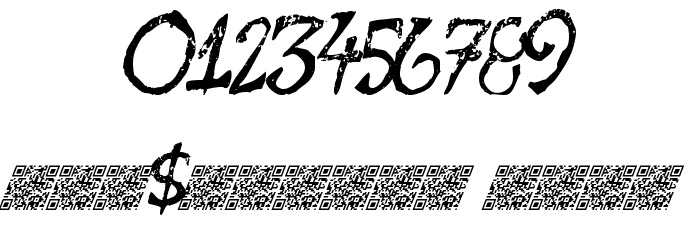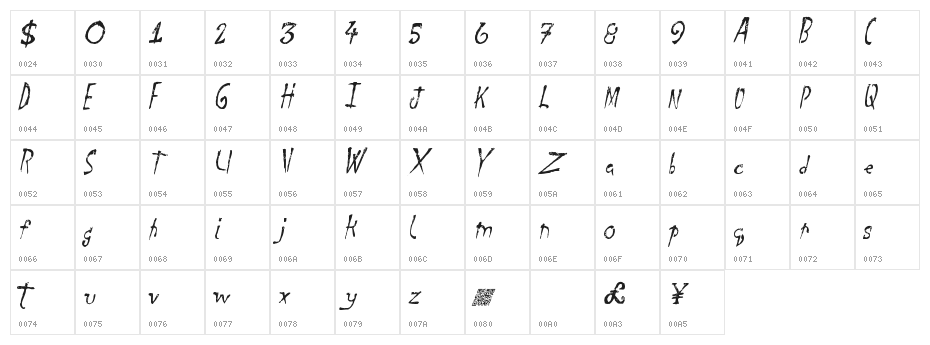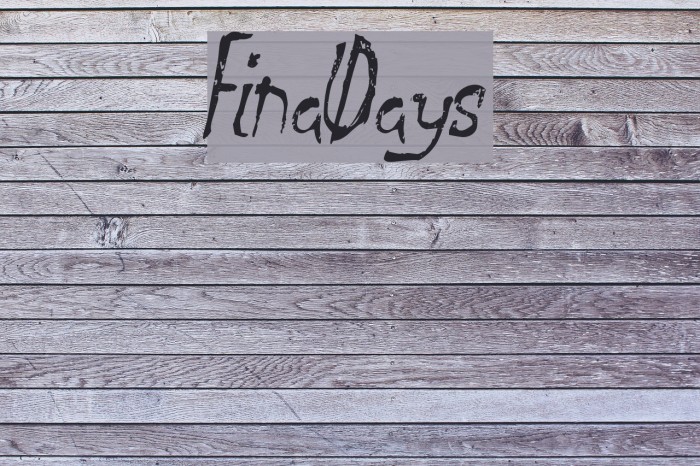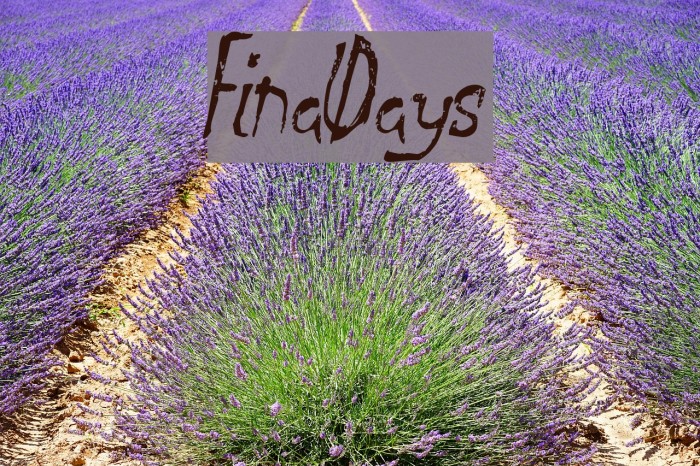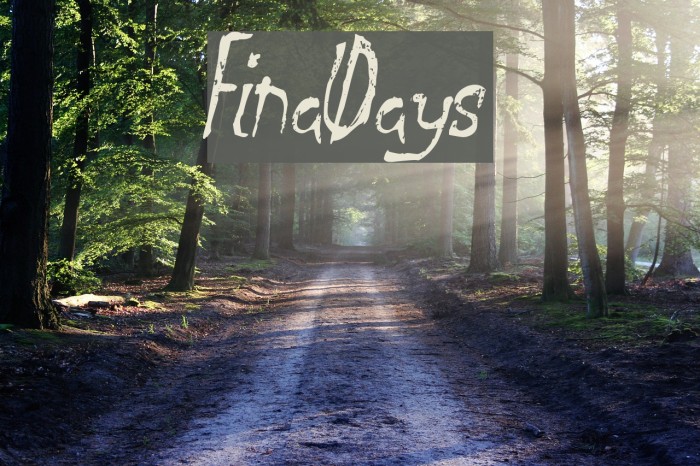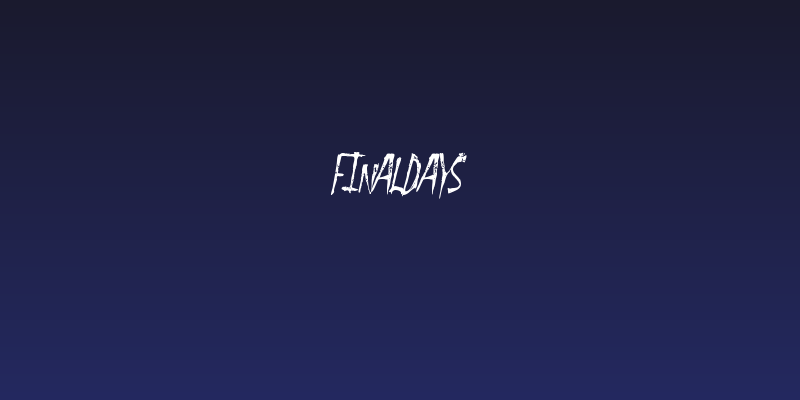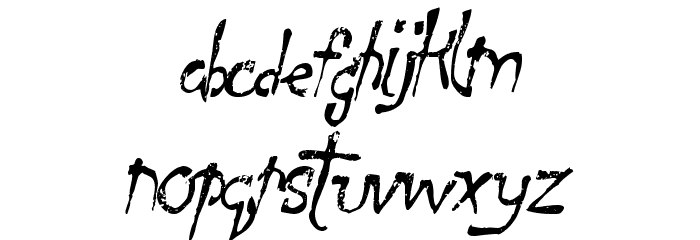
FinalDays Font
FinalDays Description
This font features a distressed and edgy style, with a hand-drawn appearance that gives it a raw and dynamic feel. The uppercase and lowercase letters are characterized by irregular strokes and varying thickness, creating a sense of movement and energy. The numbers and special characters maintain this rugged aesthetic, making the font suitable for projects that require a bold and unconventional look. The overall design is reminiscent of graffiti or street art, with a modern twist that adds to its visual impact.
| Overall Style | Modern, Edgy |
| Proposed Projects | Ideal for album covers, posters, streetwear branding, and edgy graphic designs. |